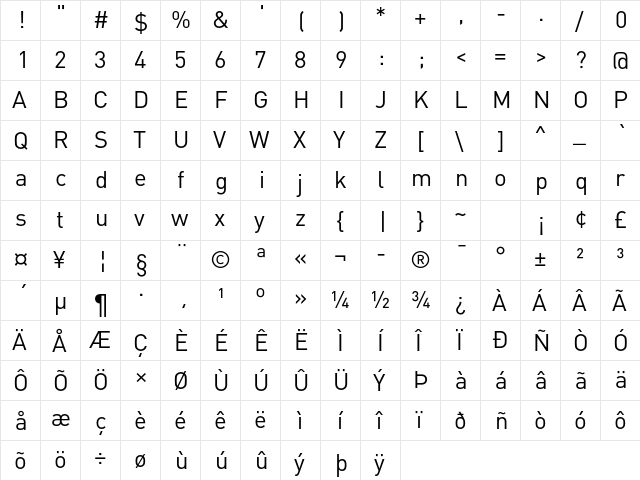
DINOT-Regular Regular
| Foundry | FSI Fonts und Software GmbH |
| Designer | Albert-Jan Pool |
Design Context for DINOT-Regular Typeface
DINOT-Regular is a composed and adaptable typeface that performs quietly and consistently across a wide range of design contexts.